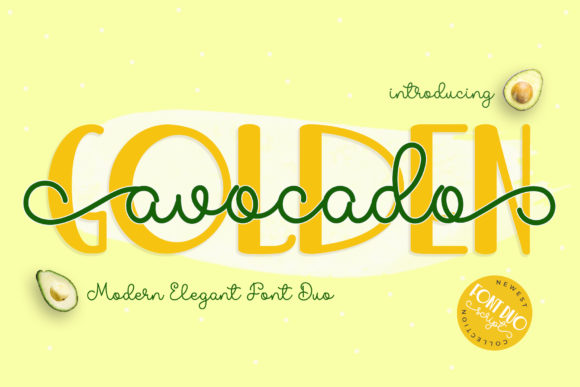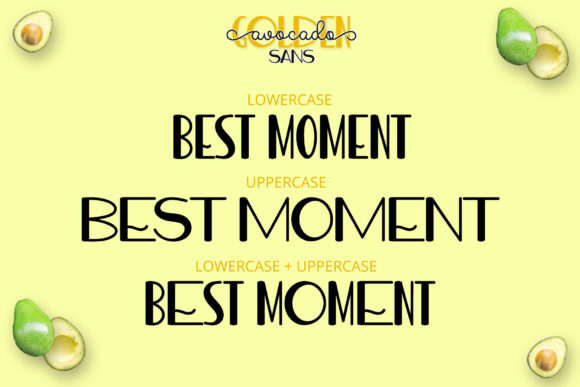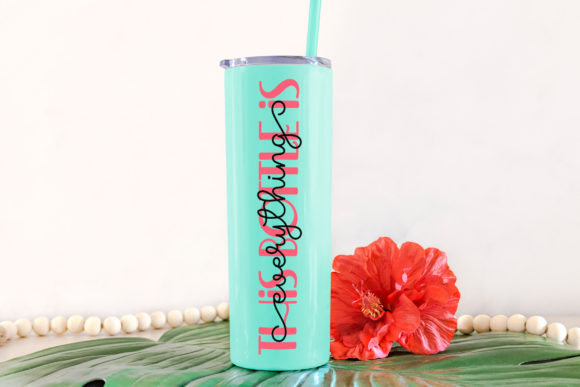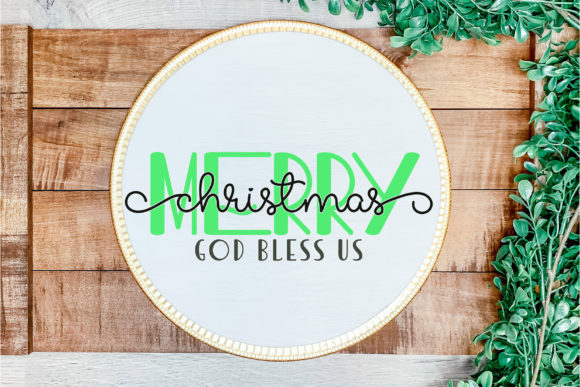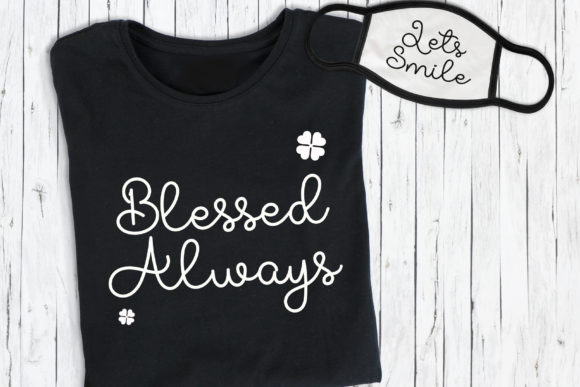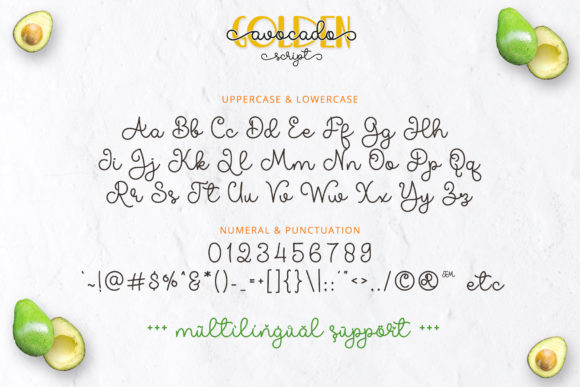
Golden Avocado Font
Golden Avocado is a modern and unique duo font (script and sans serif). Fall in love with its incredibly versatile style and use it to create spectacular designs! This font is PUA encoded which means you can access all of the glyphs and swashes with ease!